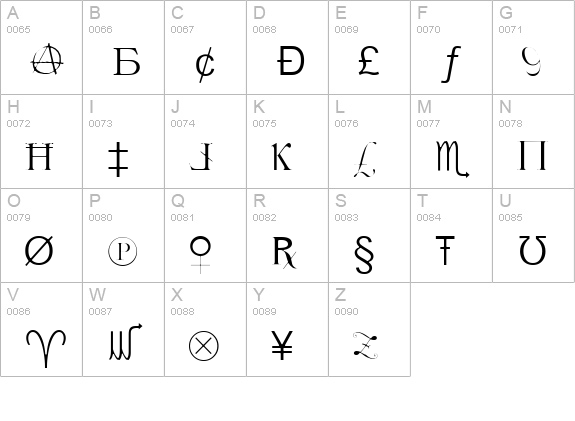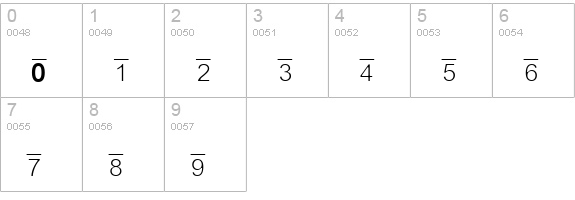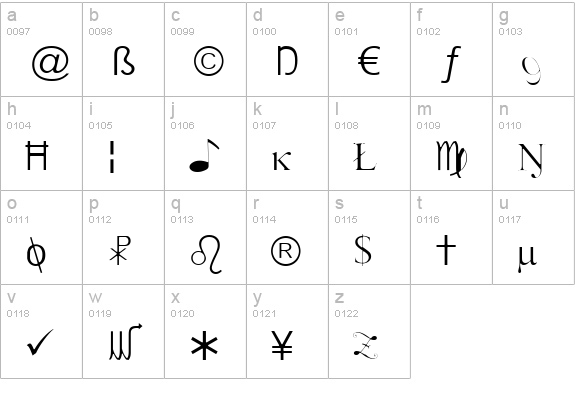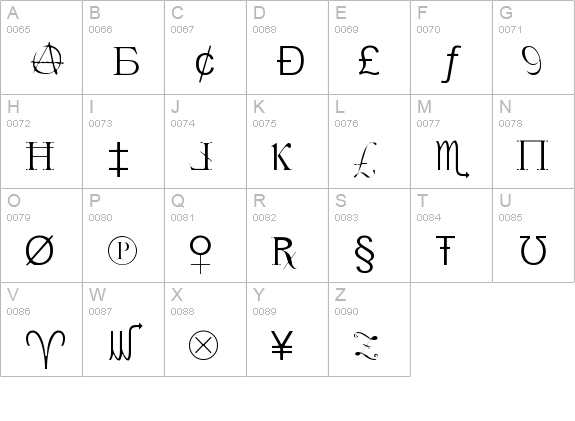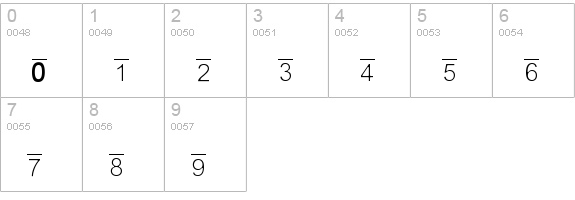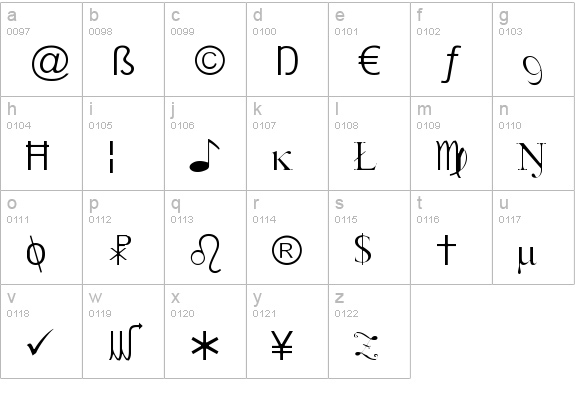
X-Cryption Light Font Details
X-Cryption Light is a refined, elegant variant in the X typeface family \xE2\x80\x94 well suited to elegant body text, refined sub-headings, and luxury branding.